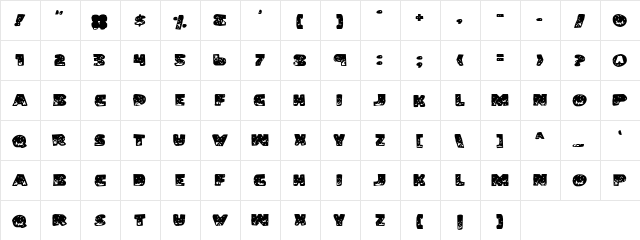
Land Shark Grunge Grunge
Design Context for Land Shark Grunge Typeface
Land Shark Grunge trades polish for personality, using distressed and eroded forms to bring grit and attitude to creative work.
Suited to punk-influenced zines, underground music branding, streetwear, and raw, anti-corporate design.
Pro Tip: Pair Land Shark Grunge with intentionally raw or lo-fi design elements. Fighting against it with overly polished surroundings will undermine its personality.